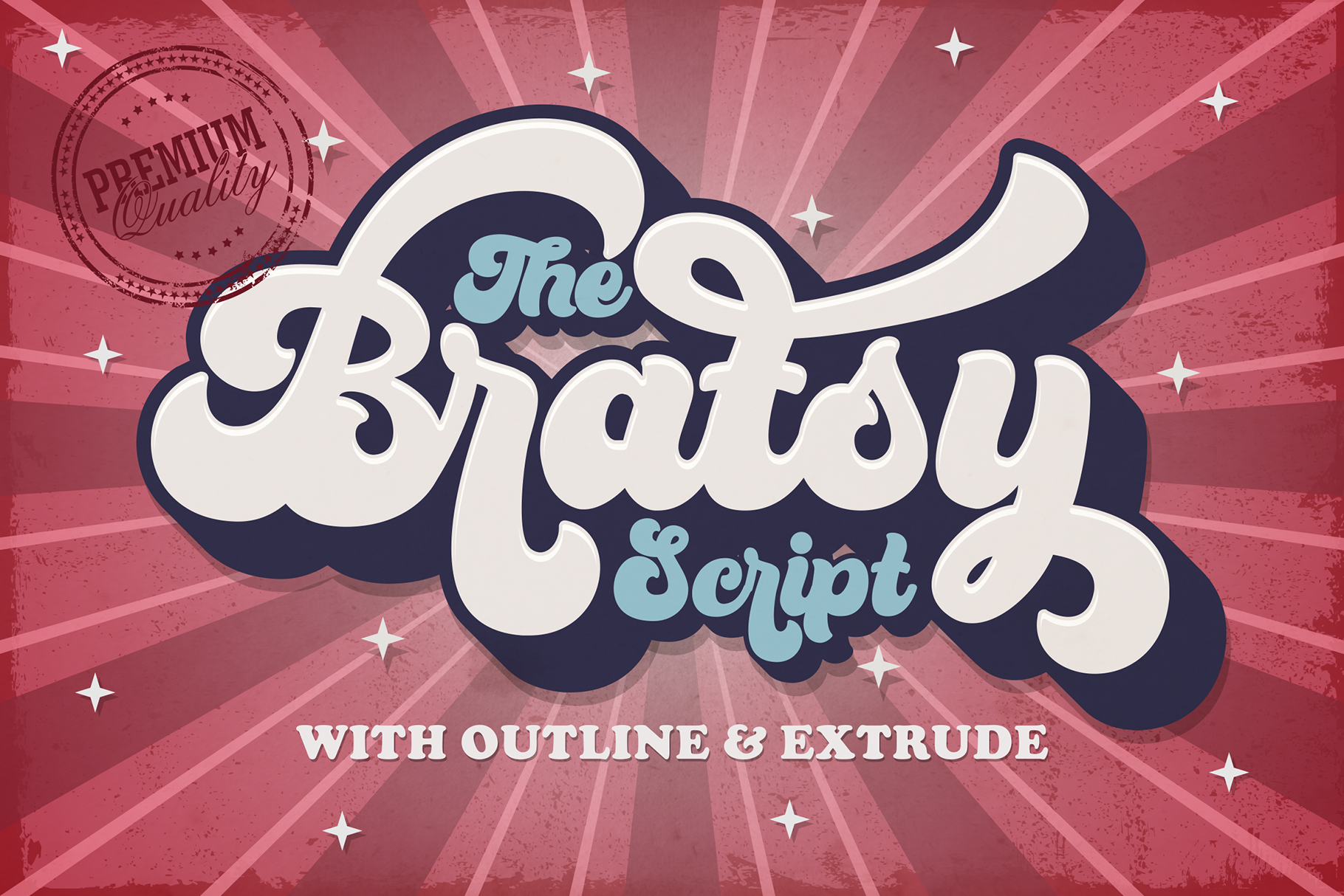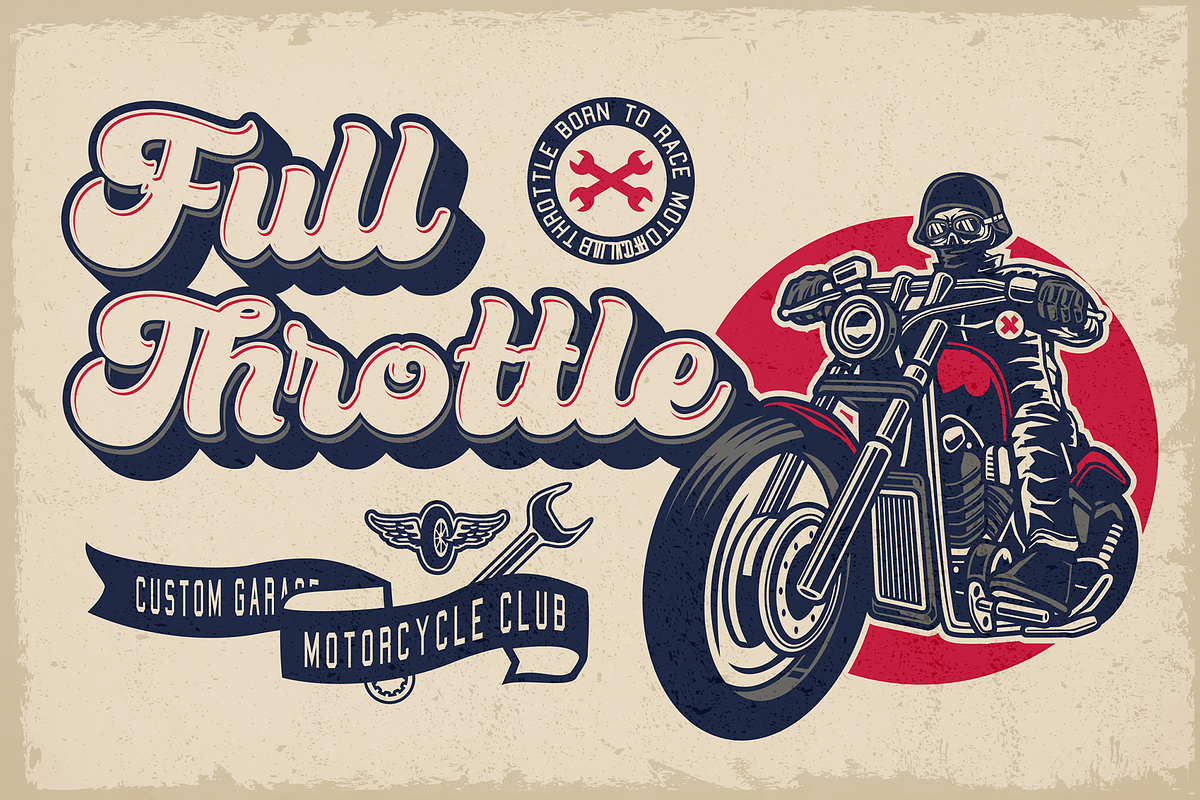
Bratsy Script - Layered Retro Font
The Bratsy Script is a layered bold script with the outline and extrude, inspired by a Retro aesthetic. Made in combination with hand lettering, it comes with dramatic movement and it’s great for any next creative project that needs a retro vibe or modern touch.
Ideal for logos, handwritten quotes, product packaging, header, poster, merchandise, social media & greeting cards.
- Stylistic Alternate
- Stylistic Set (ss01-ss08)
- Multilanguage Support